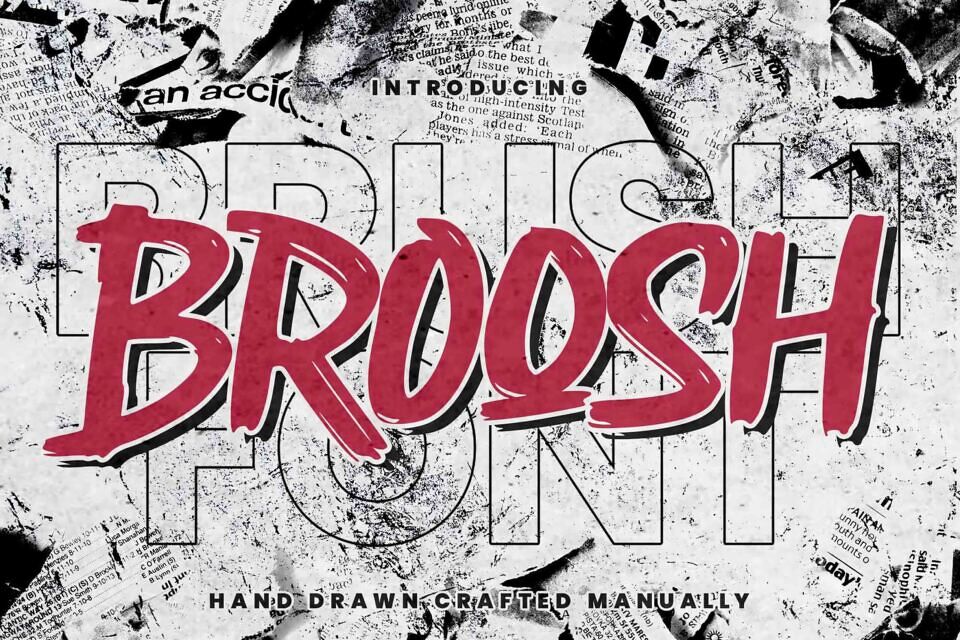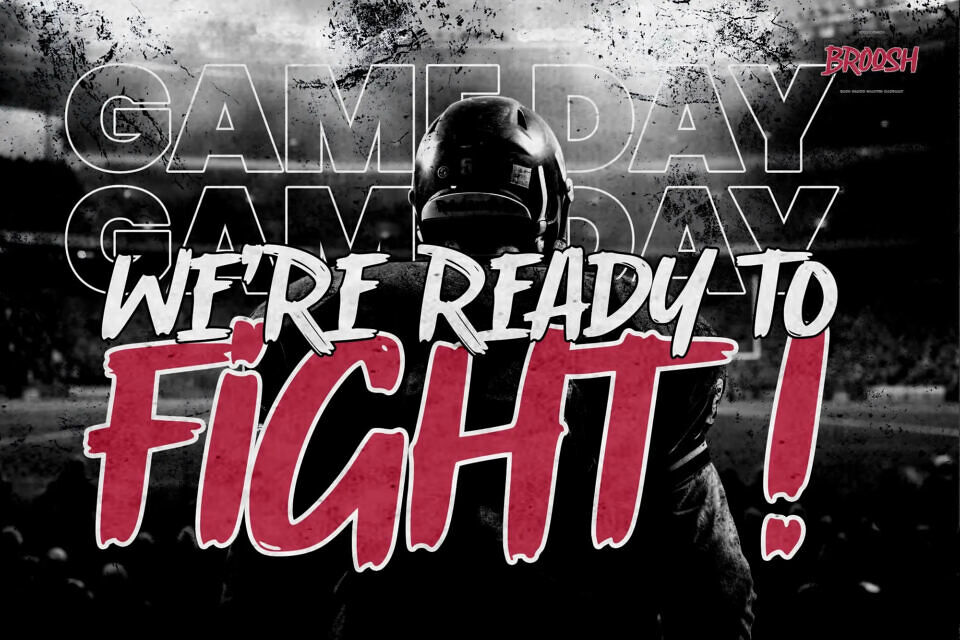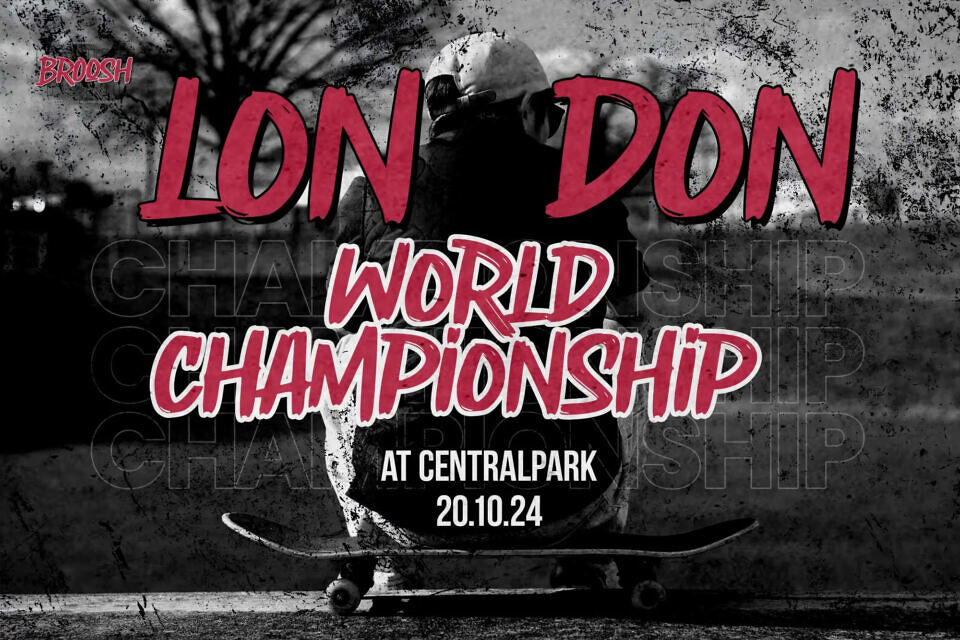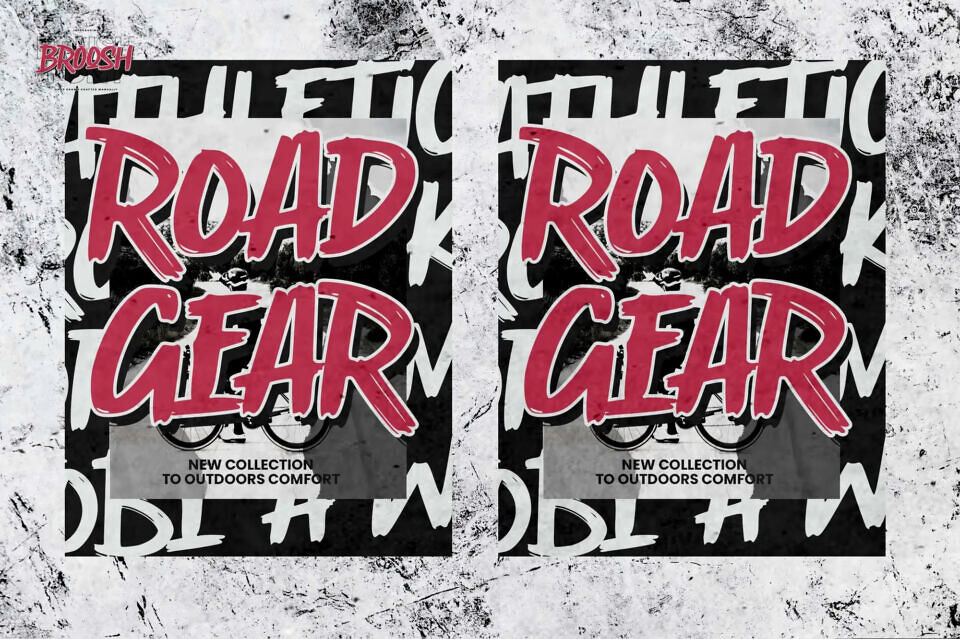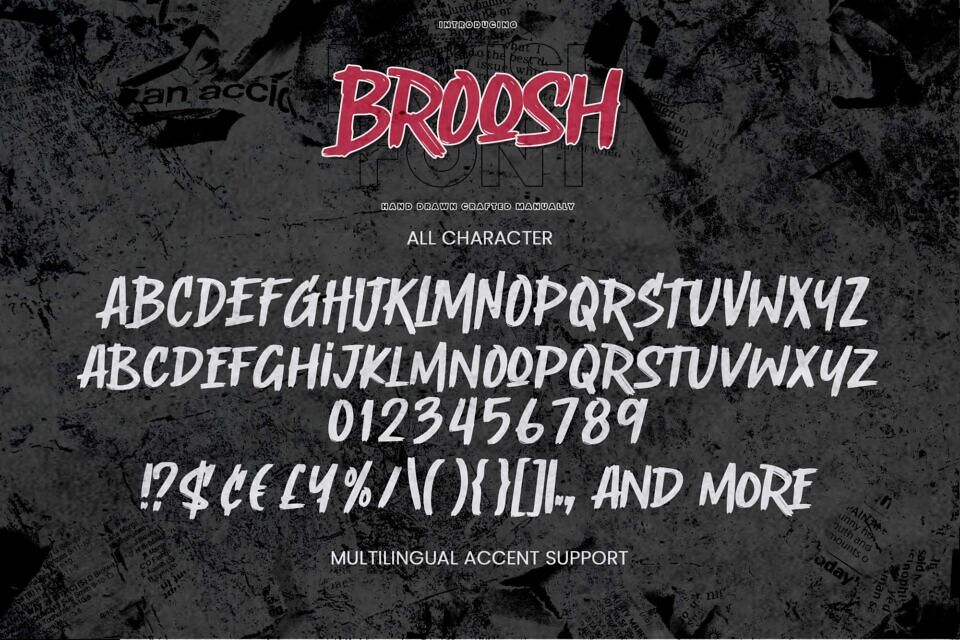
This unique, hand-drawn font features a grunge brush style and custom ligatures, making it ideal for bold designs. It’s suitable for various applications, including logos, posters, packaging, branding, and invitations, as well as wedding designs, labels, and photography watermarks. Its distinctive look adds a strong statement to any project.